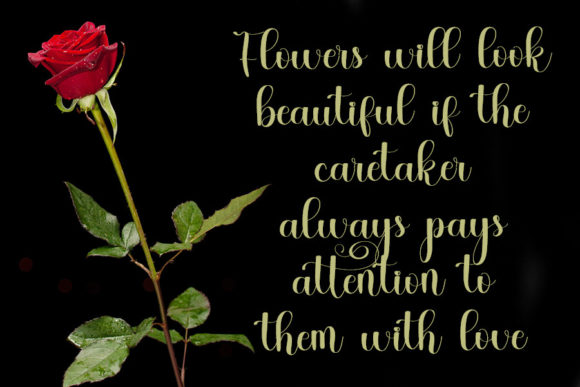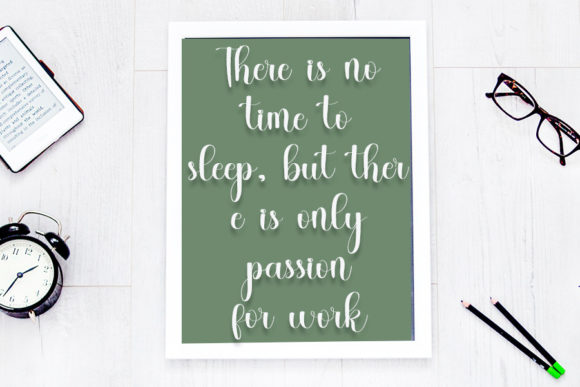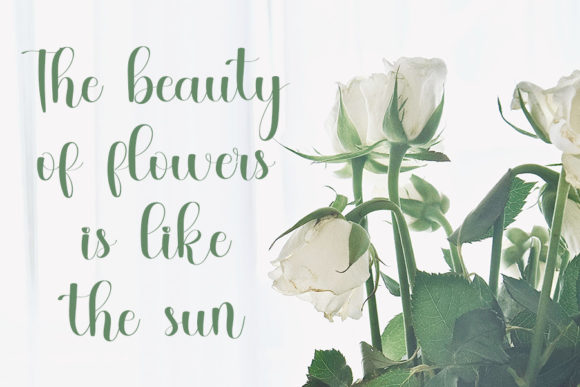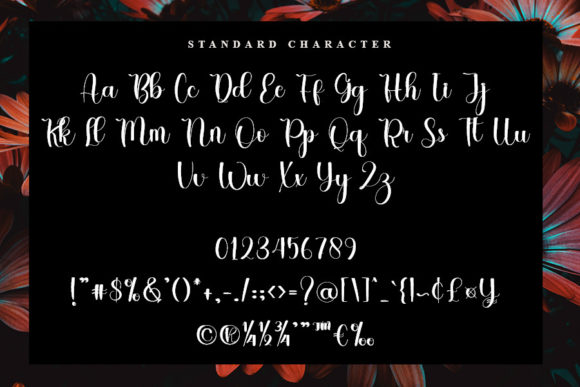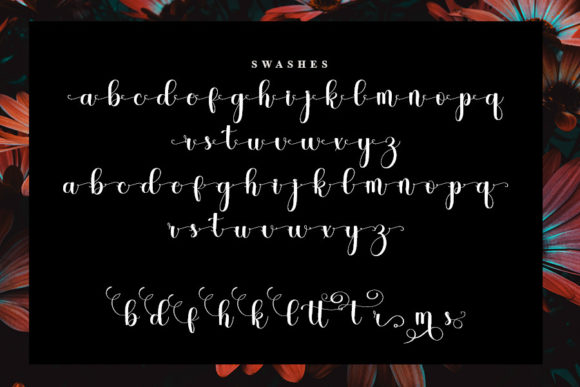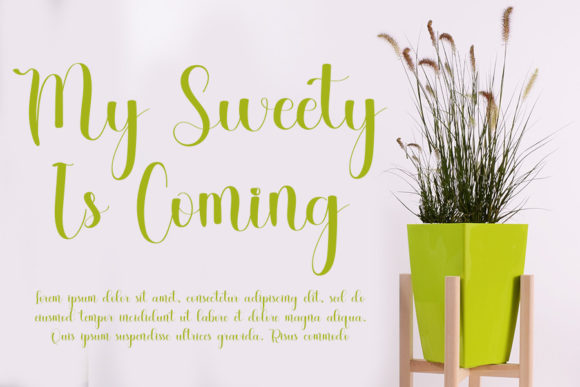
Introduction to Master Pretties Font
Have you ever found yourself stuck on a creative project, desperately searching for the perfect font to elevate your design? I know I have. It’s that moment of frustration when everything seems to be missing that certain je ne sais quoi, until you stumble upon the perfect match. For me, that moment came when I discovered the Master Pretties Font. This beautiful script font is a game-changer for any designer looking to add a touch of elegance and sophistication to their work.
With its modern, refined look and PUA encoded features, the Master Pretties Font is a valuable resource for designers. Not only can you use it for logos, branding, and invitations, but also for social media posts and wedding designs. The best part? It’s available for free download, making it an accessible design resource for anyone looking to take their creative project to the next level.
Key Features of Master Pretties Font
- Unique Hand-Drawn Design: Master Pretties Font offers a distinctive hand-drawn aesthetic, perfect for creative projects that require a touch of personality.
- Transparent Background: This font features a transparent background, allowing designers to easily overlay text on images or other design elements.
- Scalable Resolution: With a resolution of 300 DPI, Master Pretties Font can be scaled up or down without losing its quality, making it suitable for a wide range of design applications.
- Perfect for Designers: This font is ideal for designers working on creative projects, such as branding, packaging, and advertising, where a unique and eye-catching font is essential.
Honest Review: Master Pretties Font
I recently stumbled upon the Master Pretties Font, and I must say it’s a great addition to my design resource library. This font is perfect for anyone working on a creative project that requires a touch of elegance and sophistication.
- The font is highly versatile and can be used for a variety of design projects, from logos to brochures.
- The transparent background makes it easy to combine with other design elements.
- The font may not be as unique or distinctive as some other high-quality fonts on the market.
- The Master Pretties Font may not be suitable for projects that require a bold or dramatic font style.
Overall, I’m impressed with the Master Pretties Font. It’s a solid, high-quality design resource that can add a touch of sophistication to any creative project. While it may not be perfect for every design need, it’s definitely worth considering for your next project.
Tips for Getting the Most Out of Master Pretties Font
To get the most out of the Master Pretties Font, use it in conjunction with a transparent background to create visually appealing designs. You can also experiment with different font sizes, colors, and styles to create unique and creative projects.
The Master Pretties Font is ideal for use in a variety of creative projects, including social media graphics, blog posts, and presentations. Its high-quality design and transparent background make it a versatile resource for designers and non-designers alike.